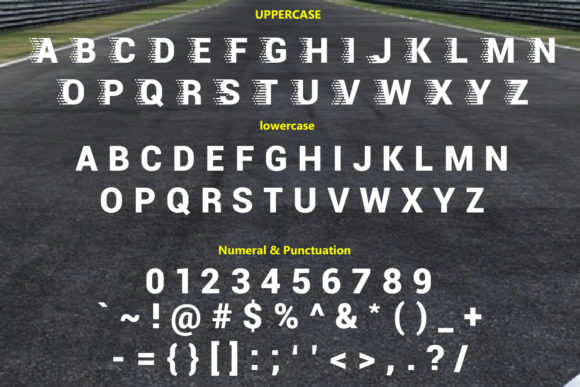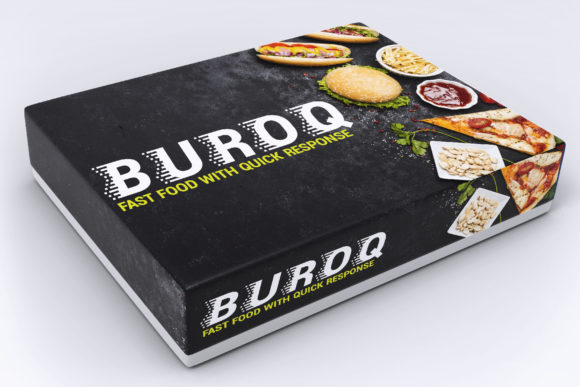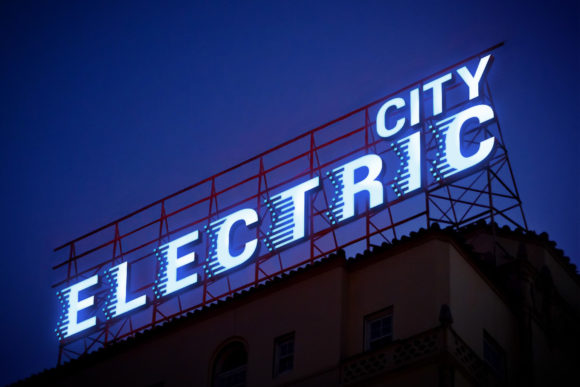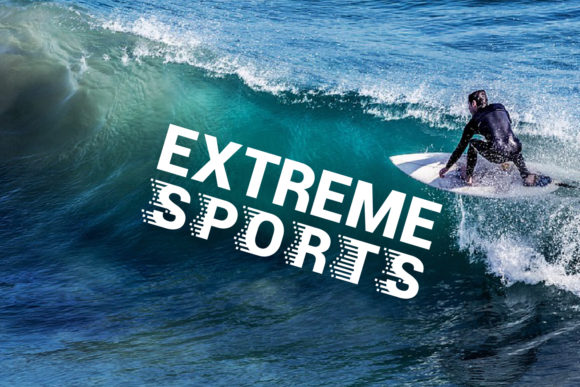
Unleash Your Creativity with Full Speed Font: The Ultimate Display Font
Are you tired of using the same old fonts for your creative projects? Look no further! Introducing Full Speed Font, an incredibly unique display font that’s about to become your new favorite. Masterfully designed to bring your ideas to life, this font has the potential to elevate your designs to the highest level.
What Makes Full Speed Font So Special?
Full Speed Font is not just another font – it’s an experience. Its unique design elements and exceptional craftsmanship set it apart from other fonts in the market. With Full Speed Font, you can add a touch of elegance, sophistication, and creativity to your designs. Whether you’re a designer, crafter, or DIY enthusiast, this font is sure to inspire you to create something amazing.
Key Features of Full Speed Font
- Unique Design: Full Speed Font boasts a distinctive design that’s both modern and stylish. Its sleek lines and curves make it perfect for creating eye-catching headlines, titles, and captions.
- High Versatility: This font is incredibly versatile, making it suitable for a wide range of creative projects, from branding and advertising to crafting and DIY tutorials.
- Easy to Read: Despite its unique design, Full Speed Font is surprisingly easy to read, making it perfect for use in both digital and print materials.
- High-Quality: Full Speed Font is a high-quality font that’s been carefully crafted to ensure that it looks great in any context.
How to Use Full Speed Font in Your Designs
Using Full Speed Font in your designs is incredibly easy. Here are a few ideas to get you started:
- Create Eye-Catching Headlines: Use Full Speed Font to create bold, eye-catching headlines that grab attention and draw readers in.
- Add a Personal Touch: Use Full Speed Font to add a personal touch to your craft projects, such as handmade cards, gift tags, and scrapbook pages.
- Elevate Your Brand: Use Full Speed Font to create a unique and memorable brand identity that sets you apart from the competition.
Tips for Getting the Most Out of Full Speed Font
To get the most out of Full Speed Font, here are a few tips to keep in mind:
- Experiment with Different Sizes: Don’t be afraid to experiment with different font sizes to find the perfect fit for your design.
- Pair it with Other Fonts: Try pairing Full Speed Font with other fonts to create a unique and interesting contrast.
- Use it in Combination with Images: Use Full Speed Font in combination with images to create a visually appealing design that’s sure to grab attention.
In conclusion, Full Speed Font is an incredibly unique and versatile display font that’s perfect for designers, crafters, and DIY enthusiasts. With its sleek design, high versatility, and ease of use, this font has the potential to bring your creative ideas to the highest level. So why wait? Download Full Speed Font today and start creating something amazing!